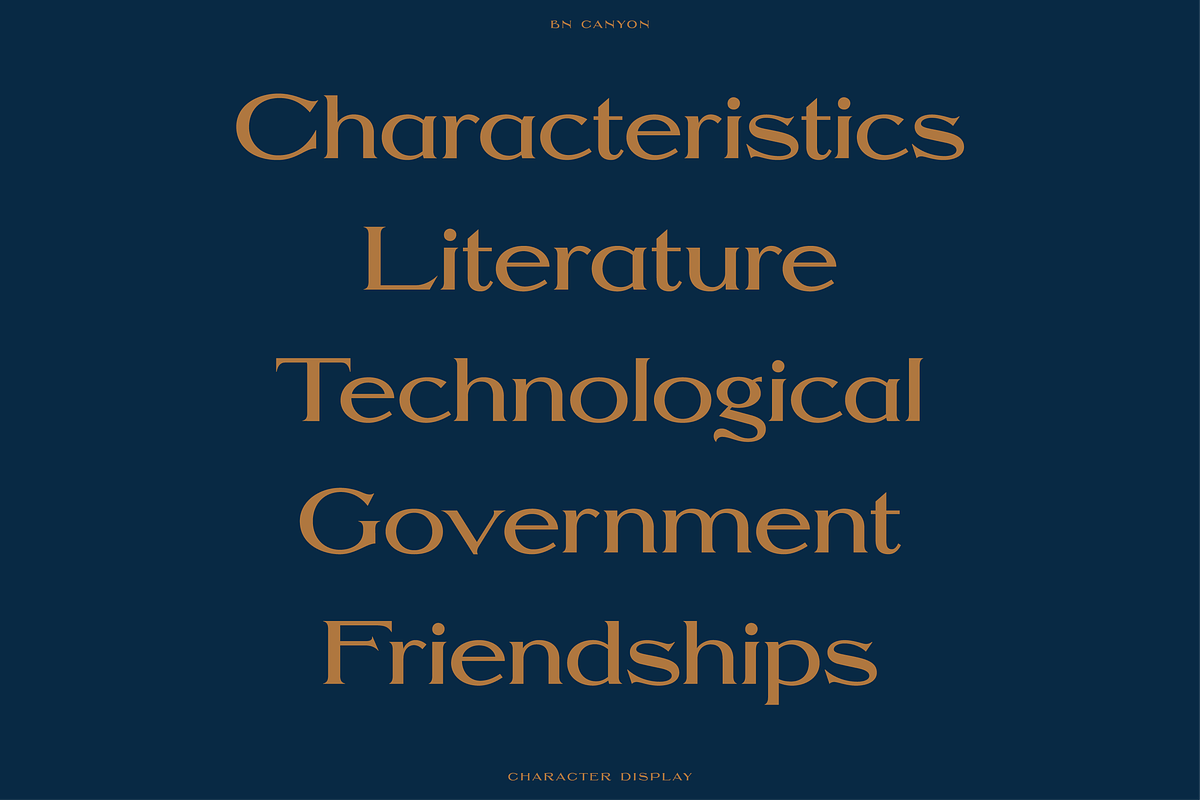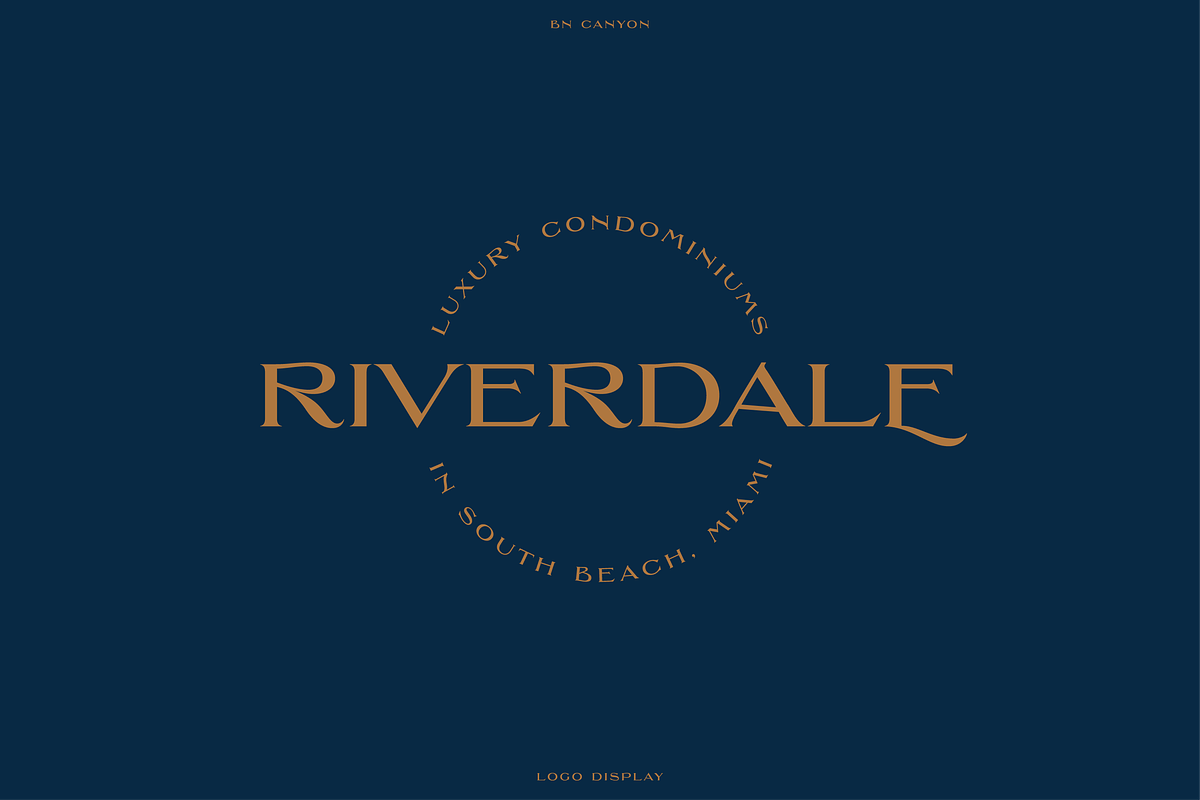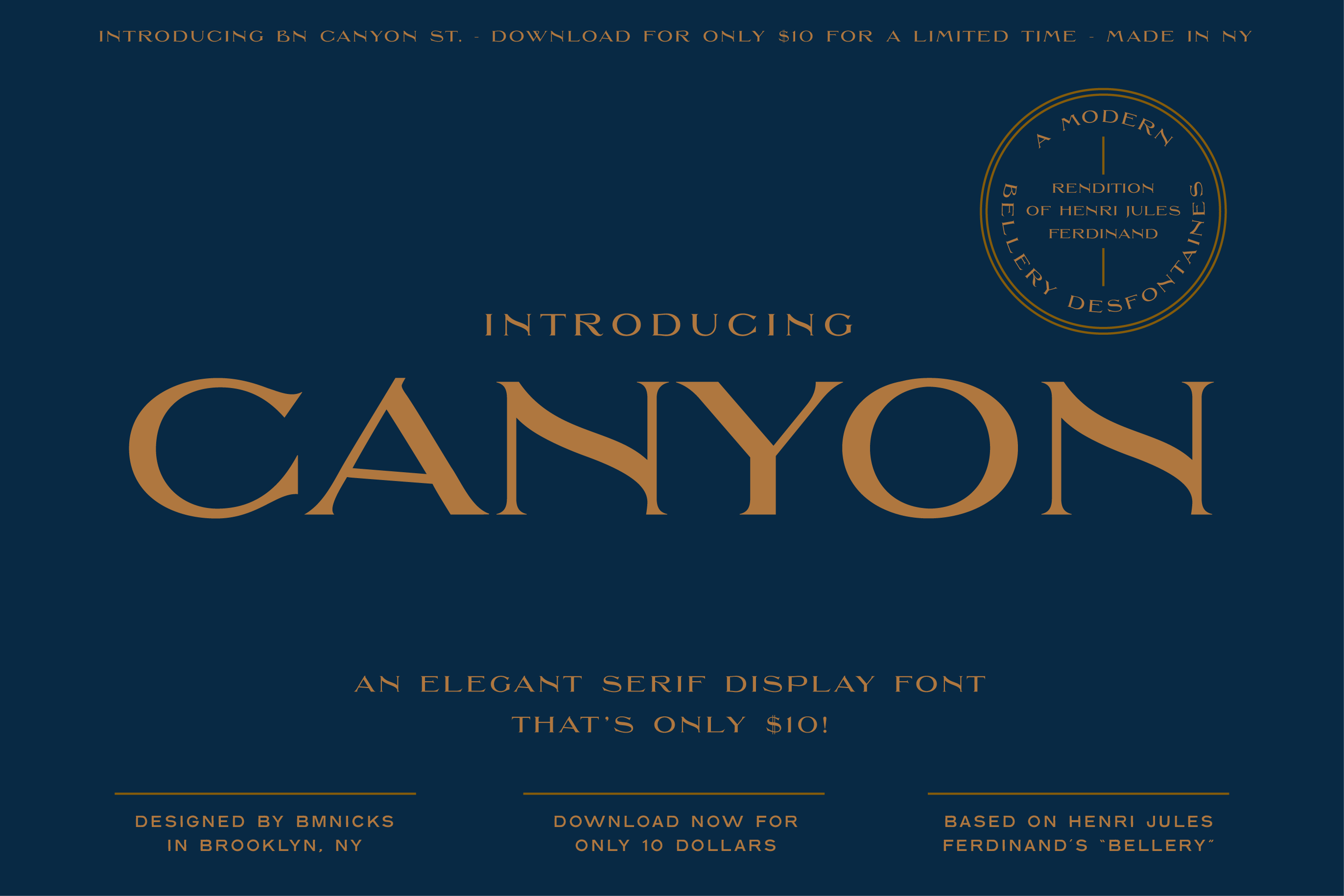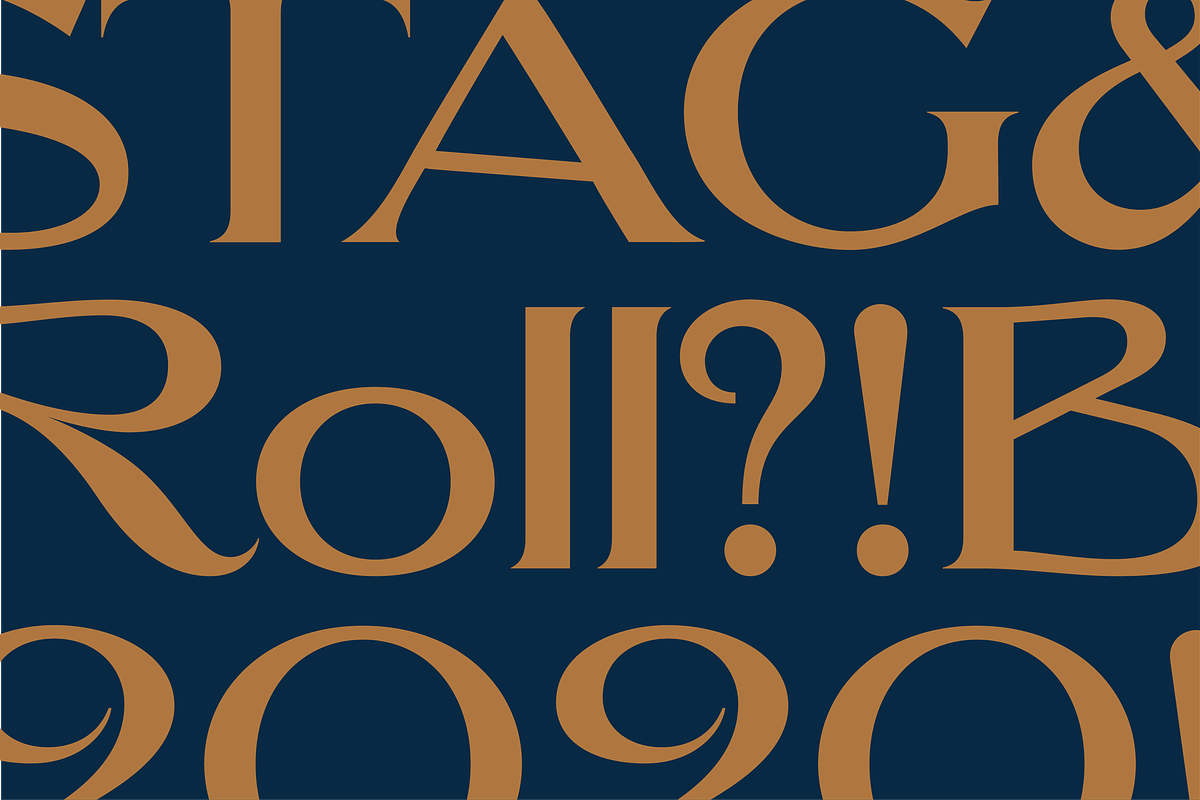
Canyon - An Elegant Serif Typeface
Introducing BN Canyon!
An elegant serif display typeface based on Henri Jules Ferdinand’s “Le Bellery Desfontaines” type specimen. Using this specimen as a guide, I modified and refined each and every character (along with creating new ones) in order to be legible in a digital format.
BN Canyon includes all english characters & punctuation along with most Swedish & European characters. See the display images for a look at the complete set of characters.